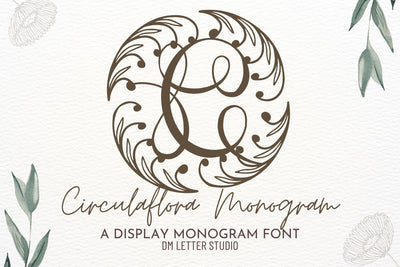
Circulaflora Monogram
Circulaflora Monogram – Botanical Round Monogram Font
Circulaflora Monogram is a modern botanical monogram font featuring uppercase letters encircled by elegant floral rings. Designed with balance and sophistication, this font adds natural charm to personalized branding, wedding materials, packaging, and seasonal stationery. Whether you’re crafting a luxe logo or customizing a heartfelt gift, Circulaflora brings clean lines and organic beauty together in one stylish package.
Botanical Circle Design: Each uppercase letter is centered within a floral wreath for a polished, nature-inspired look.
Perfect for Elegant Projects: Ideal for monogram logos, wedding branding, personalized items, and boutique packaging.
Refined and Versatile: Combines modern simplicity with delicate detail—great for minimalist or boho designs.
Complete Character Set: A–Z uppercase letters, numbers, punctuation, and multilingual support included.